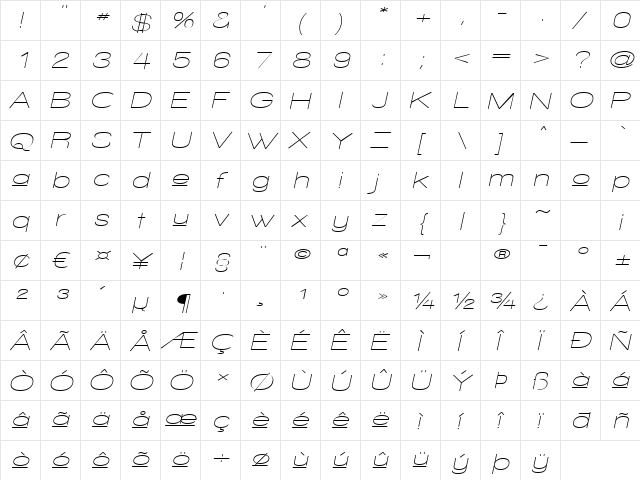
Walkway Upper Oblique Expand Regular
Design Context for Walkway Upper Oblique Expand Typeface
Walkway Upper Oblique Expand takes a measured approach to typography — its balanced proportions and neutral character make it a reliable workhorse for both digital and print work. The dynamic lean of this cut emphasises speed and emphasis in any layout.
Pro Tip: Try Walkway Upper Oblique Expand for annotation and caption copy alongside an upright companion — the contrast in angle creates a dynamic but ordered typographic system.